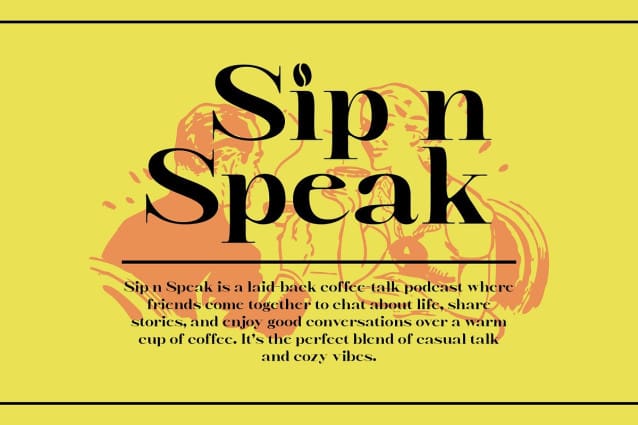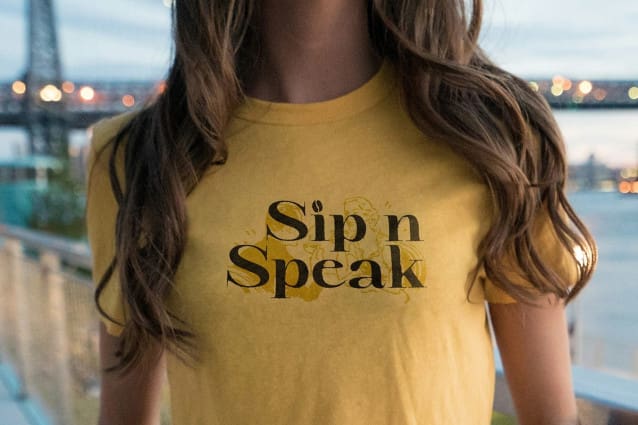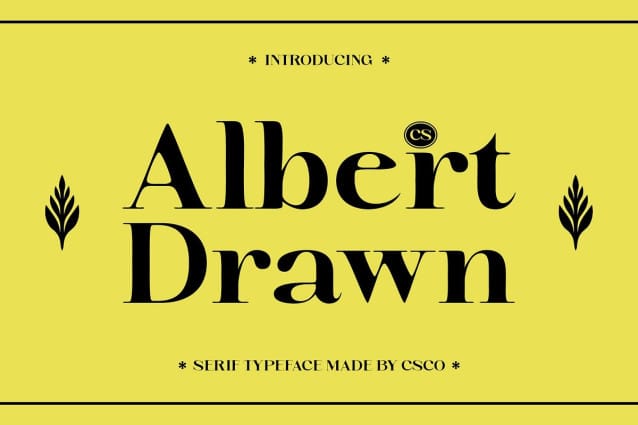
CS Albert Drawn Font
CS Albert Drawn Font: is a classic serif font that exudes elegance through its intricately detailed letterforms. Each curve and line is crafted to embody tradition and sophistication, making this font an ideal choice for designs that require a formal and classy touch. Its rich detailing ensures that every character stands out, capturing the essence of luxury and refinement in any project.
Drawn Effect for a Handcrafted Aesthetic The applied drawn effect introduces a unique character and warmth to this drawn font, giving the impression of being meticulously handwritten. This artistic touch enhances the font’s personality, making it feel both inviting and authentic. The combination of traditional design with a handcrafted feel allows this font to resonate deeply with audiences, adding a layer of intimacy and care to your designs.
Versatile Applications for Formal Occasions This drawn font is highly suitable for a variety of applications, including formal invitations, books, and premium branding. Its elegant aesthetics make it perfect for projects that aim to convey a sense of sophistication and timeless appeal.